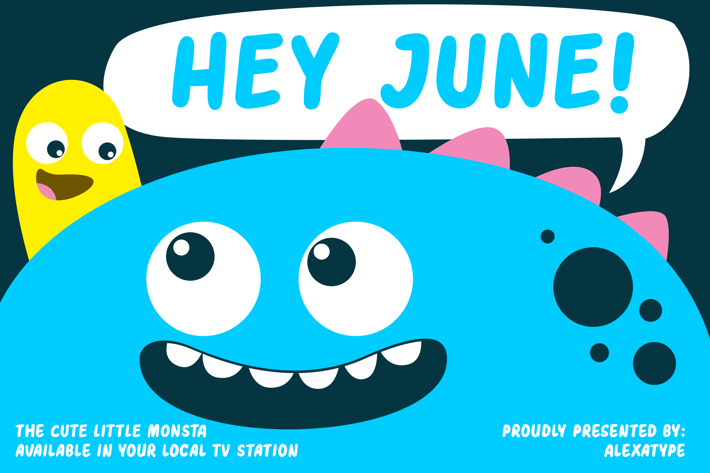
Hey June - Friendly Children Font
Hey June - Friendly children font
With rounded corner, slightly slanted design, and chubby looks, Hey June will brings joy, smile, and excitement on your upcoming projects.
Suit perfectly for poster, games title, cartoon movie, credit title, magazine, and so on.